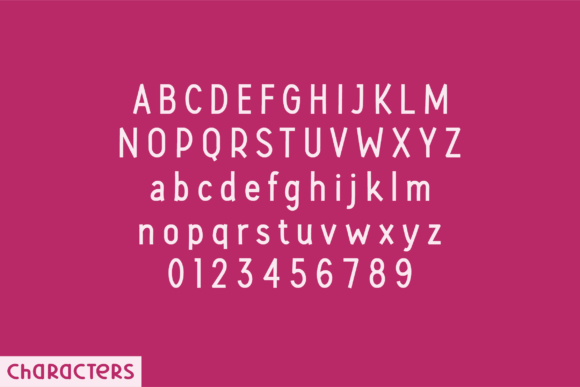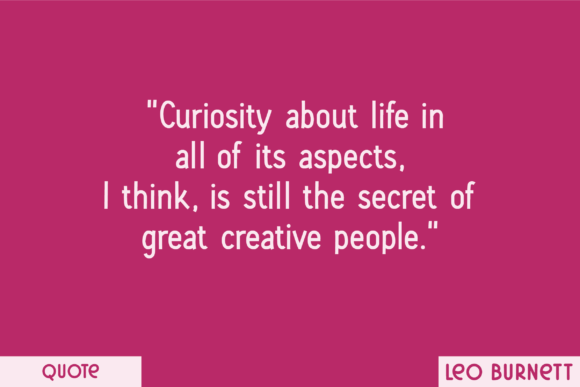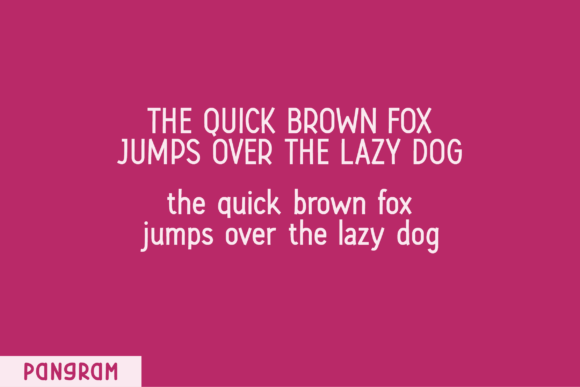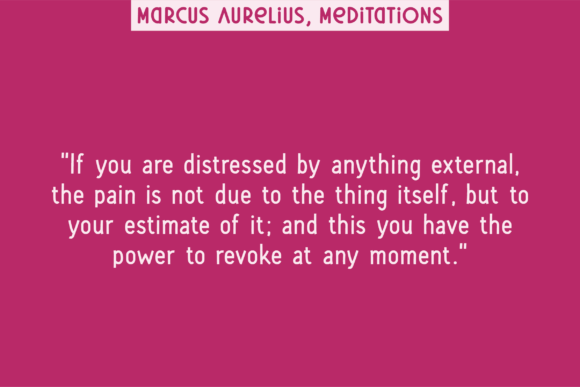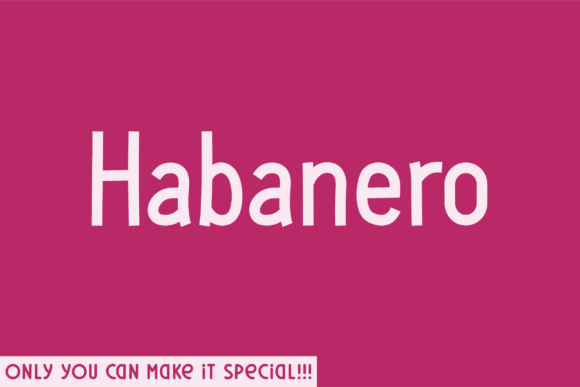
Habanero Font: Elevate Your Designs with Elegance and Modernity
In the world of typography, a font can make or break a design. For designers and crafters looking for a modern and elegant sans serif font, Habanero is an excellent choice. With its minimalist and clean vibe, Habanero can effortlessly elevate your favorite designs, from book covers to social media posts, and everything in between.
The Characteristics of Habanero Font
Habanero is a sans serif font, which means it doesn’t have the small lines or flourishes at the ends of the letters. This gives it a clean and modern look that’s perfect for designs that require a touch of sophistication. The font’s minimalist vibe makes it versatile and easy to pair with other design elements.
Some of the key characteristics of Habanero font include:
- Elegant and modern design: Habanero’s sleek lines and curves give it a sophisticated look that’s perfect for high-end designs.
- Minimalist and clean vibe: The font’s simplicity makes it easy to read and versatile for various design applications.
- Sans serif: The lack of small lines or flourishes at the ends of the letters gives Habanero a modern and streamlined look.
Uses of Habanero Font
Habanero’s versatility makes it suitable for a wide range of design applications. Here are some ideas to get you started:
- Book covers: Add a touch of elegance to your book covers with Habanero’s modern and sophisticated design.
- Magazines: Use Habanero to create visually appealing headlines and body text for your magazine designs.
- Social media posts: Elevate your social media posts with Habanero’s clean and modern vibe.
- Invitations: Make your invitations stand out with Habanero’s elegant and sophisticated design.
- Branding and packaging: Use Habanero to create a cohesive brand identity that exudes modernity and sophistication.
Why Choose Habanero Font?
With so many fonts available, why choose Habanero? Here are some reasons to consider:
- Unique and distinctive design: Habanero’s modern and elegant design sets it apart from other sans serif fonts.
- Highly versatile: Habanero can be used for a wide range of design applications, from print to digital.
- Easy to read: The font’s clean and simple design makes it easy to read, even at small sizes.
- Modern and sophisticated: Habanero’s design is perfect for designers and crafters looking to create high-end designs.
Tips for Using Habanero Font
To get the most out of Habanero font, here are some tips to keep in mind:
- Pair with other fonts: Experiment with pairing Habanero with other fonts to create visually appealing combinations.
- Use for headlines and body text: Habanero’s clean and modern design makes it suitable for both headlines and body text.
- Experiment with colors: Try out different colors to see how they interact with Habanero’s design.
- Keep it simple: Don’t be afraid to keep your design simple and let Habanero’s elegance shine through.
In conclusion, Habanero font is an excellent choice for designers and crafters looking for a modern and elegant sans serif font. With its minimalist and clean vibe, Habanero can effortlessly elevate your designs and add a touch of sophistication. Whether you’re creating book covers, magazines, social media posts, or invitations, Habanero is a versatile font that can help you achieve your design goals.